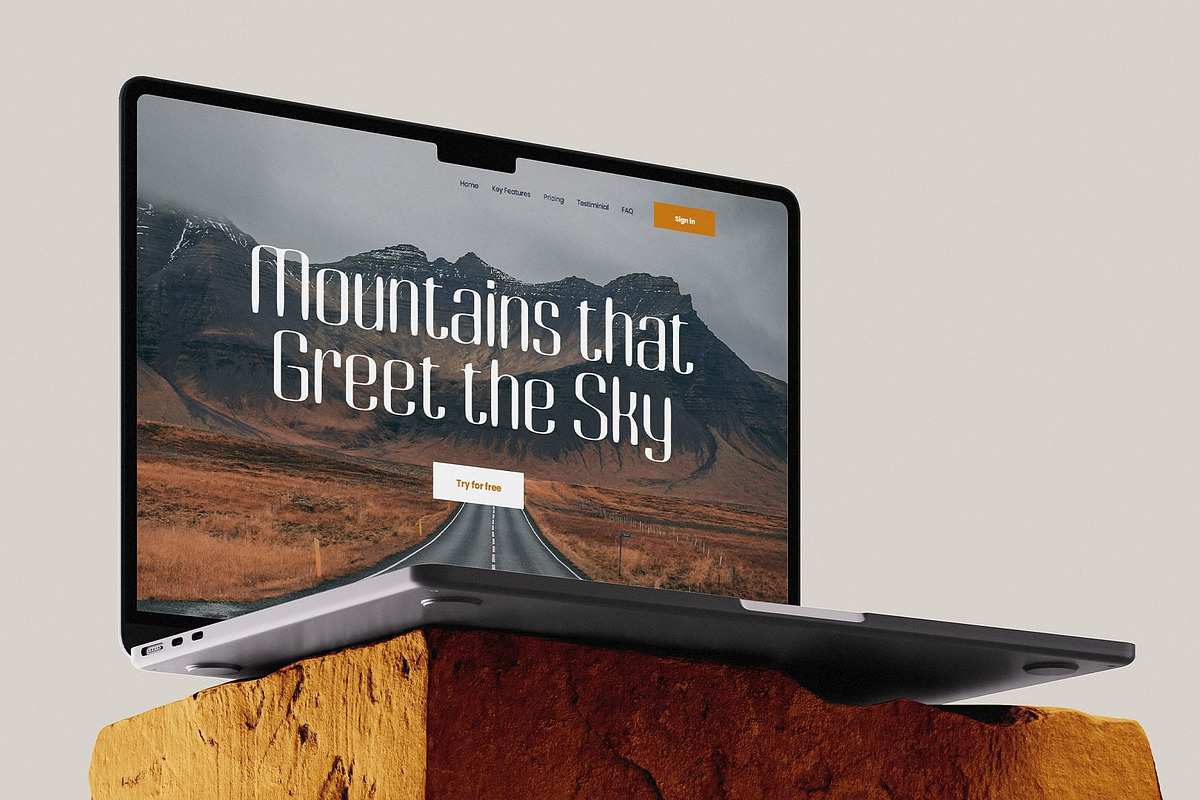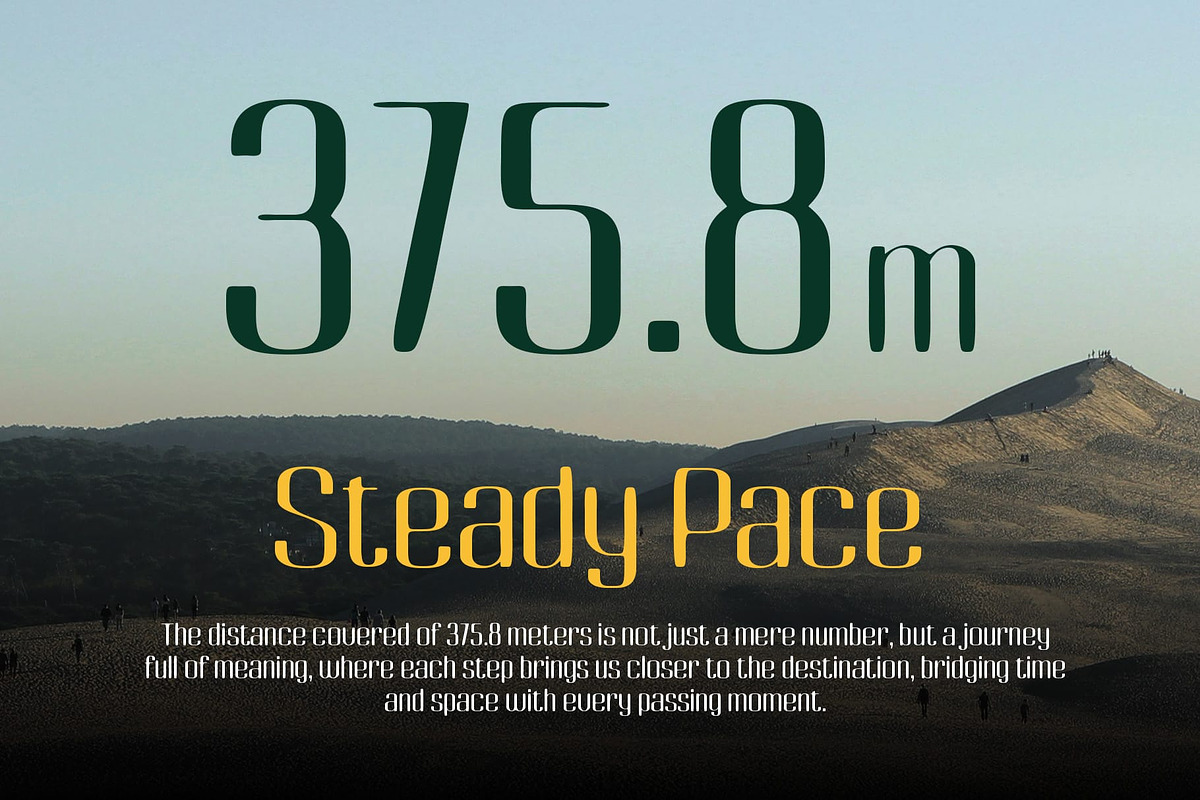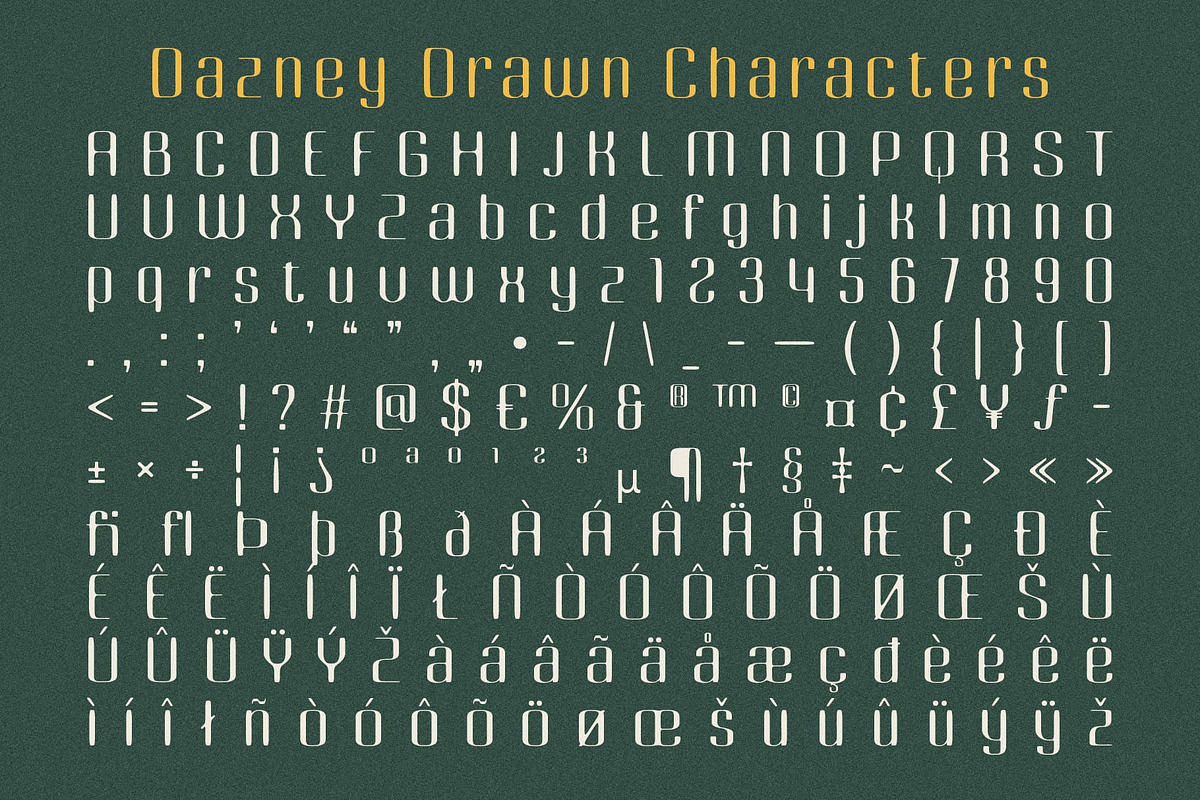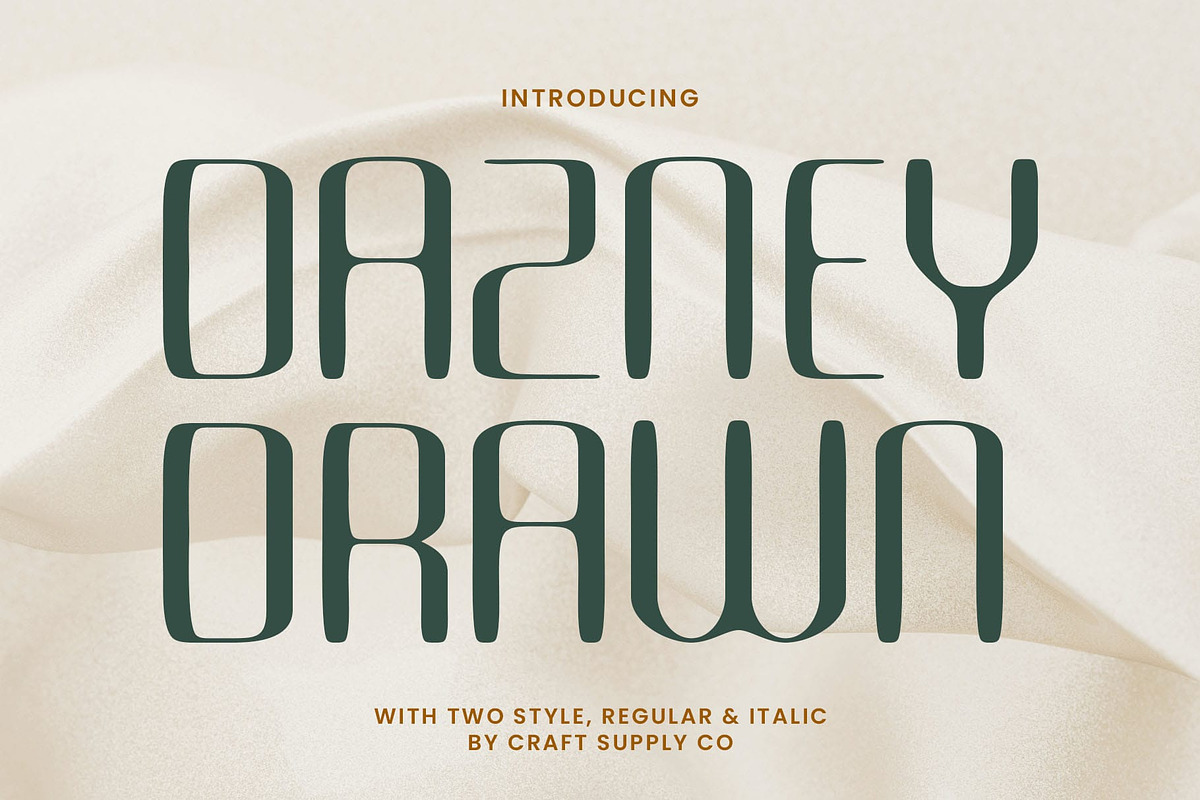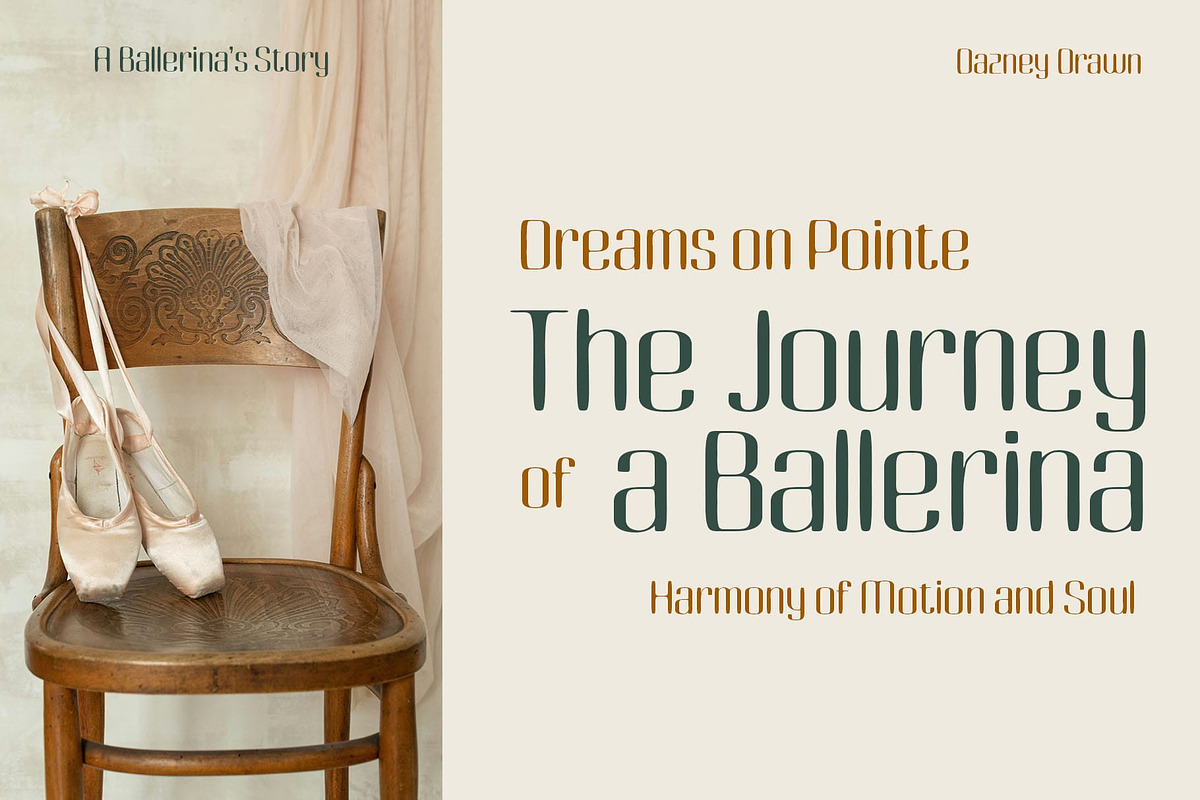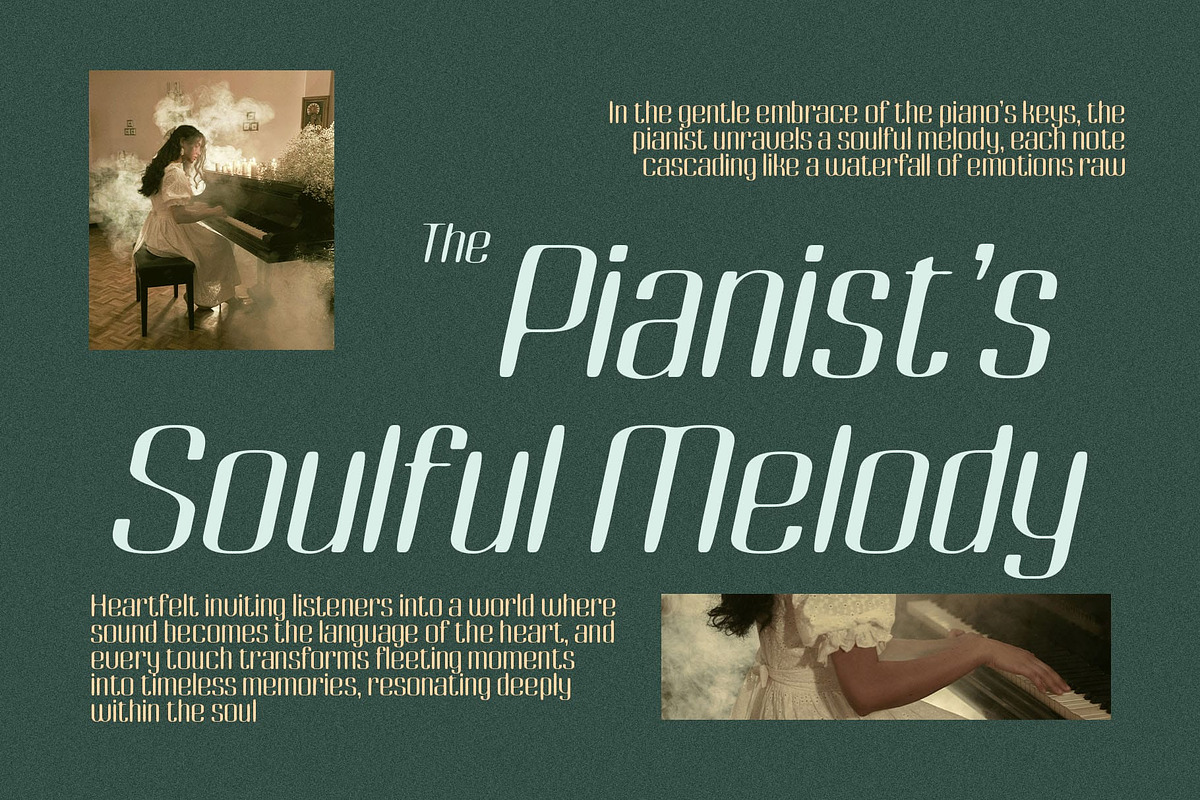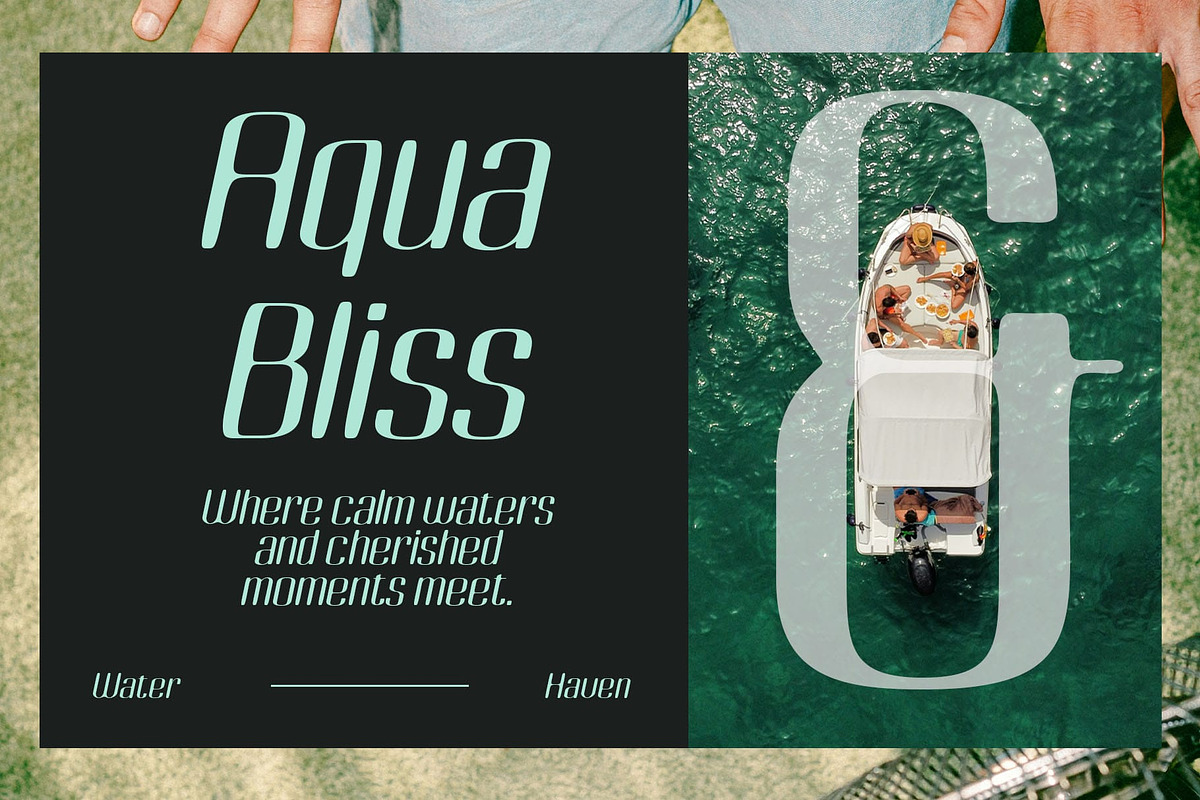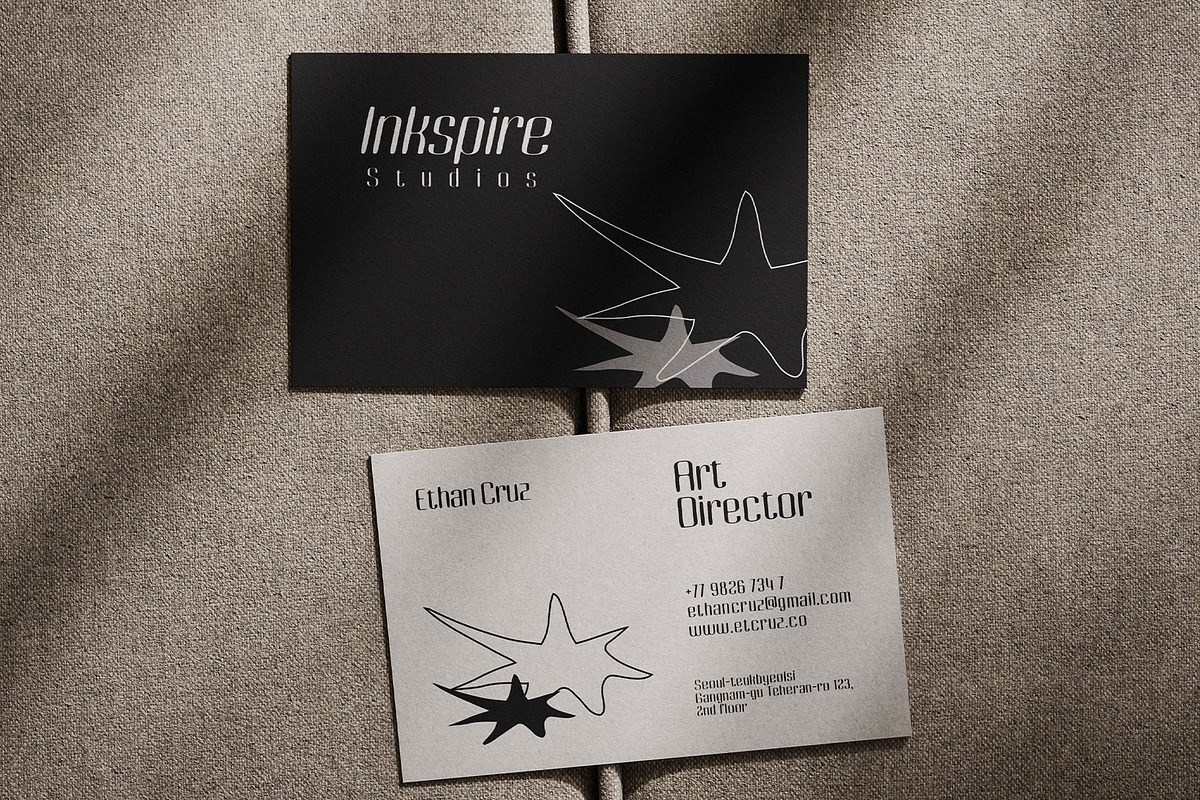
Dazney Drawn
Dazney Drawn Font: A Creative Blend of Precision and Personality
Modern Sans-Serif Font with a Condensed Form Dazney Drawn is a modern sans-serif font characterized by its condensed structure and clean lines. Designed for space efficiency, its vertically elongated proportions create a sleek, compact look that is perfect for maximizing visual impact in tight layouts. Whether used in headlines, banners, or editorial designs, the font’s condensed form ensures readability and a polished, contemporary feel.
Handcrafted Drawn Effect for Artistic Flair What sets Dazney Drawn apart is its unique drawn effect, which introduces subtle handcrafted details to the font’s modern design. This artistic touch adds a layer of creativity and warmth, making the font feel approachable while retaining its professional appeal. The combination of clean sans-serif precision and organic, hand-drawn elements strikes a perfect balance between structure and individuality.
Versatility Across Creative Applications The bold, condensed form of Dazney Drawn makes it a versatile choice for a wide range of projects. From branding and packaging to posters and editorial layouts, this font adapts effortlessly to various design needs. Its strong, structured appearance ensures it stands out, while the drawn effect lends a distinctive personality that enhances its versatility.